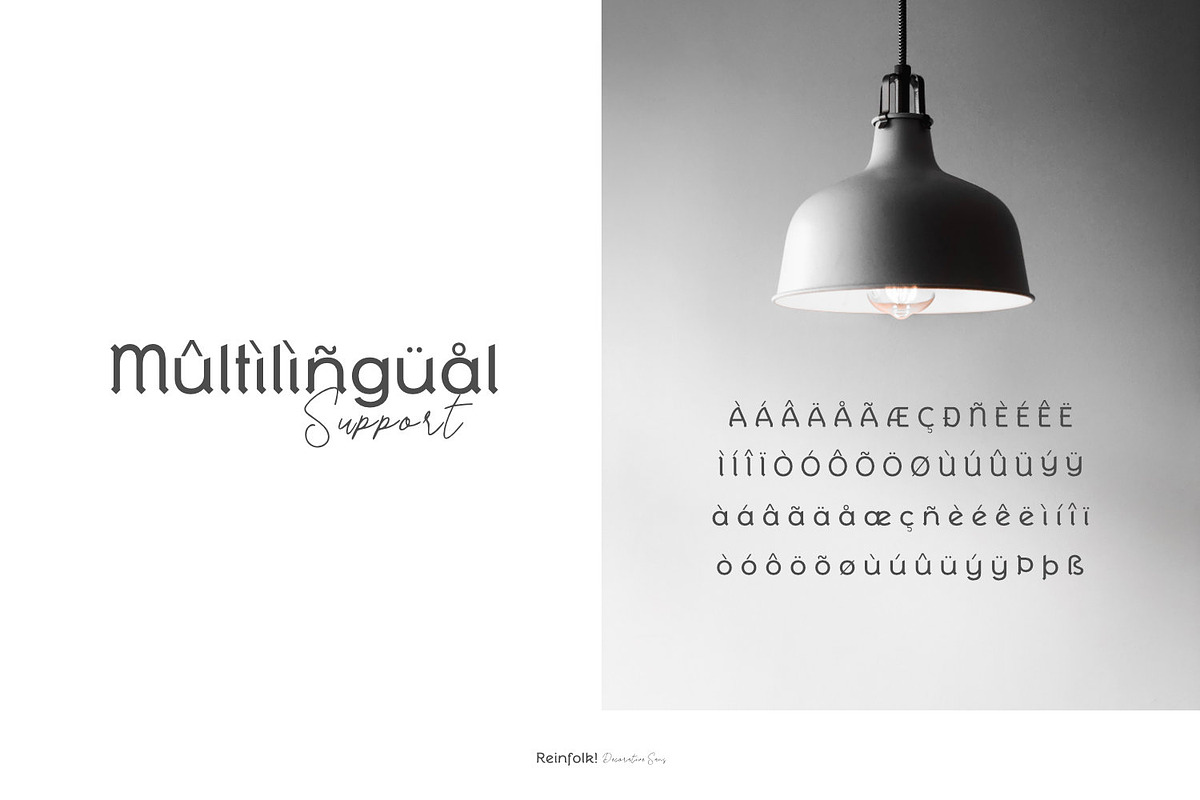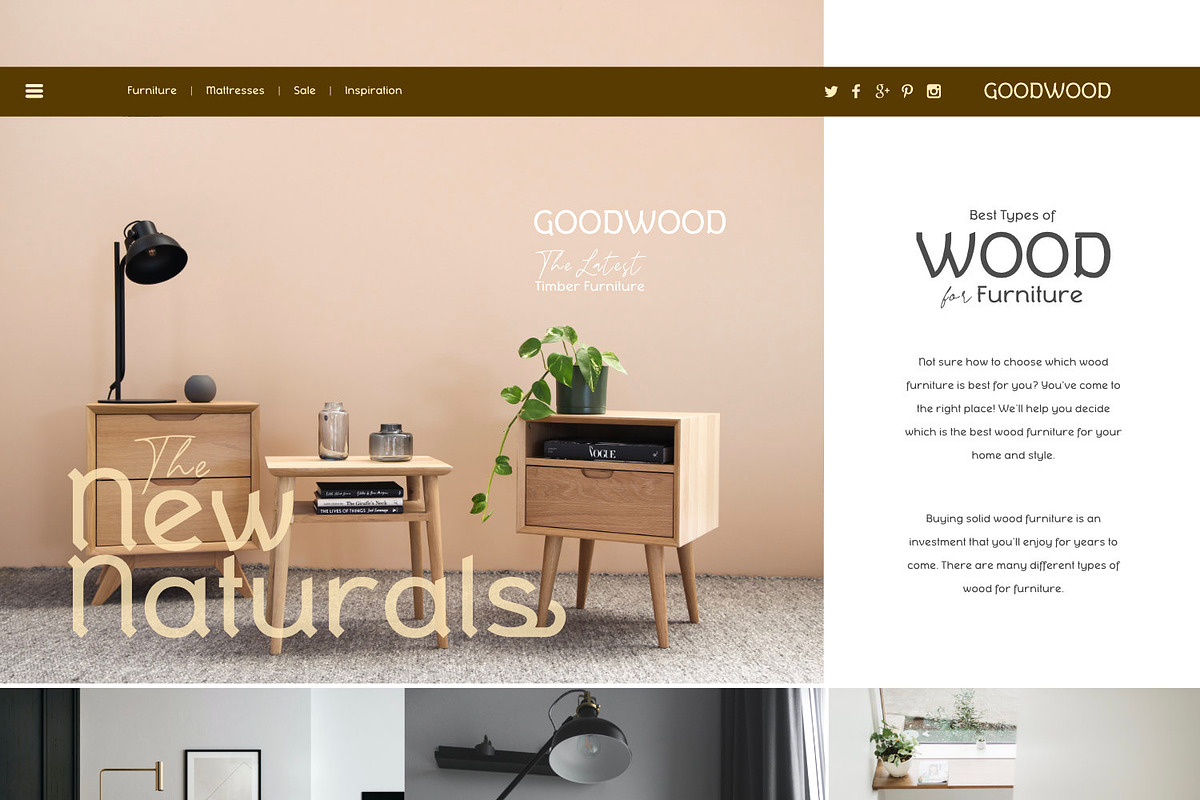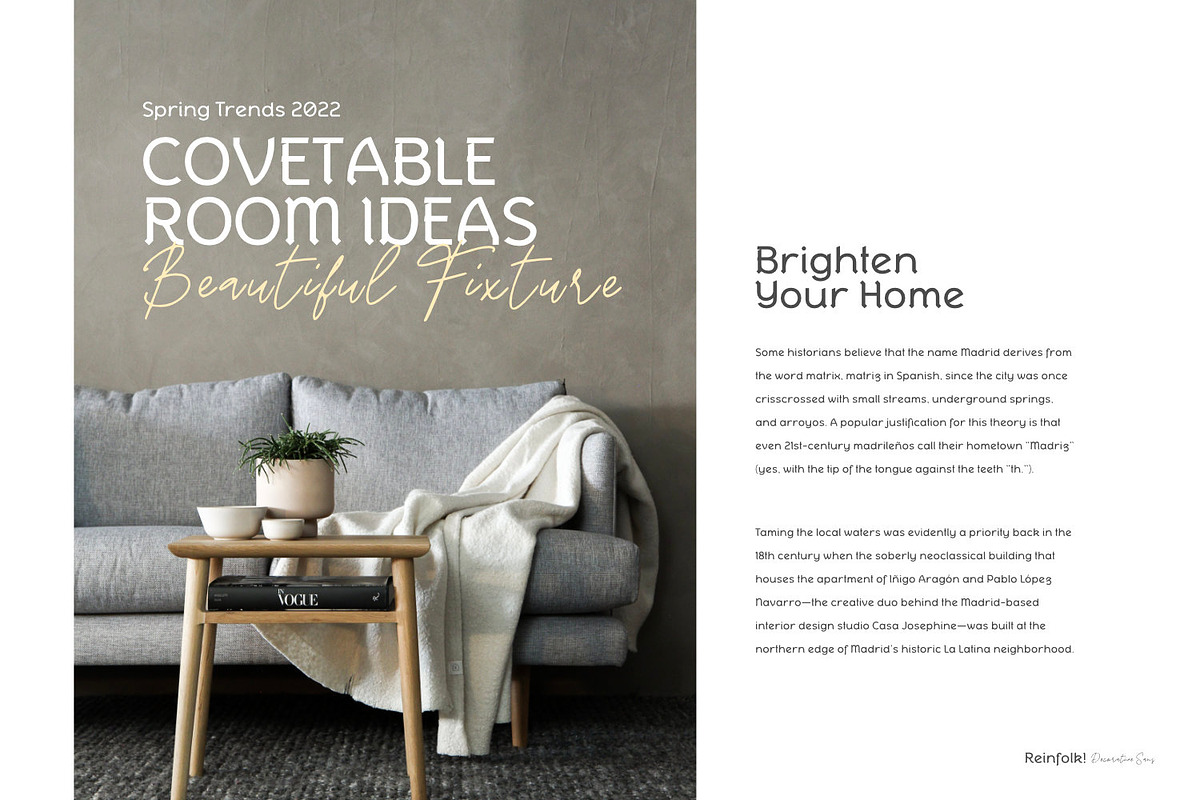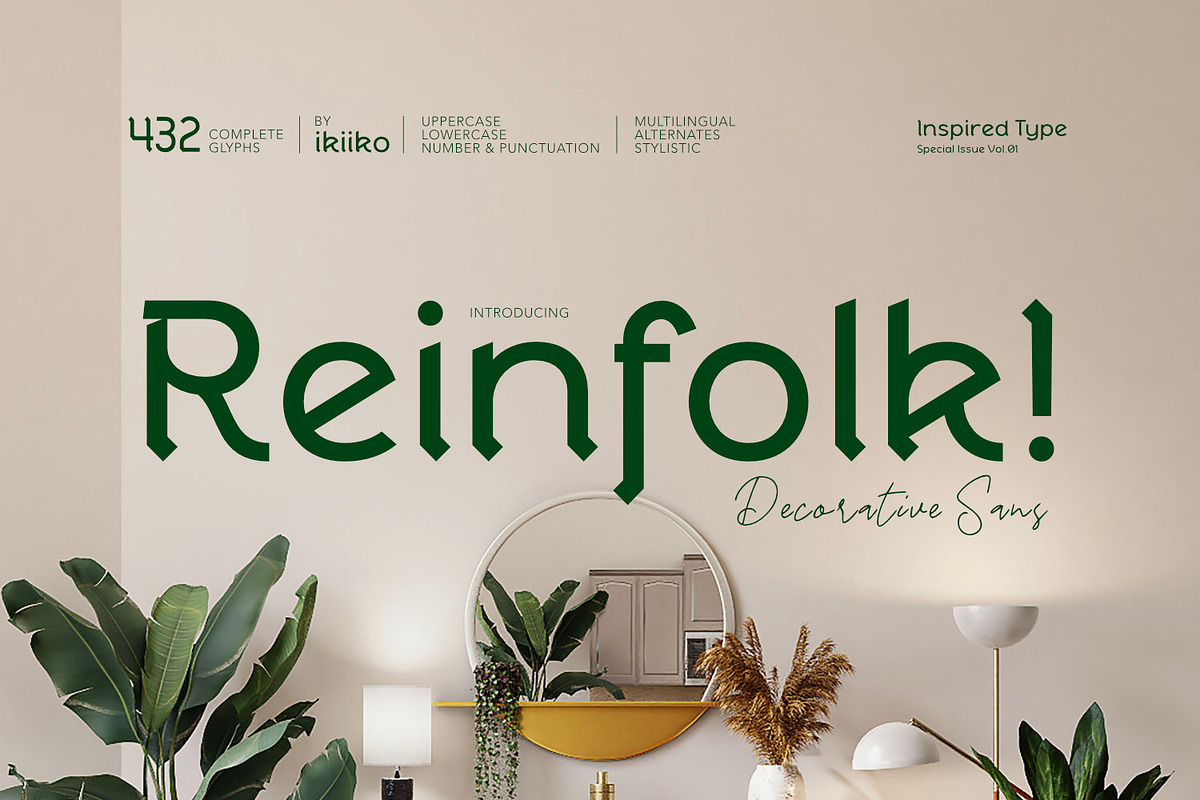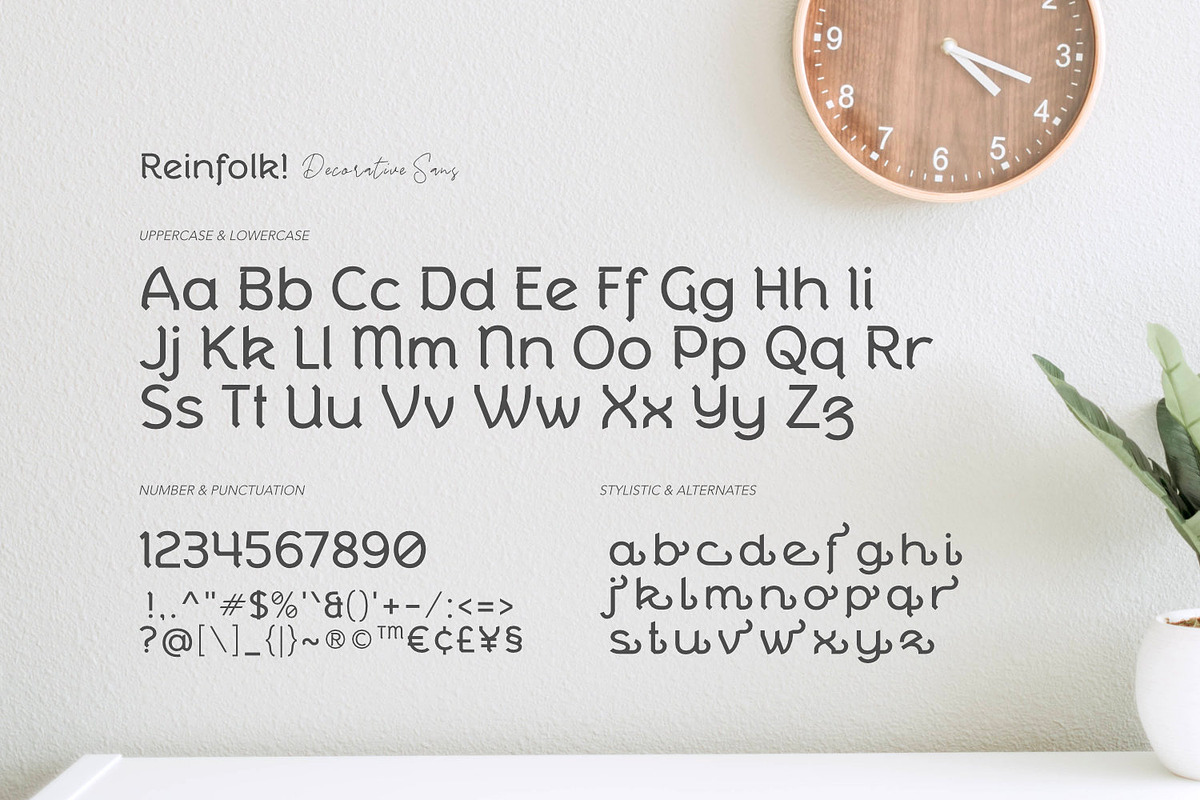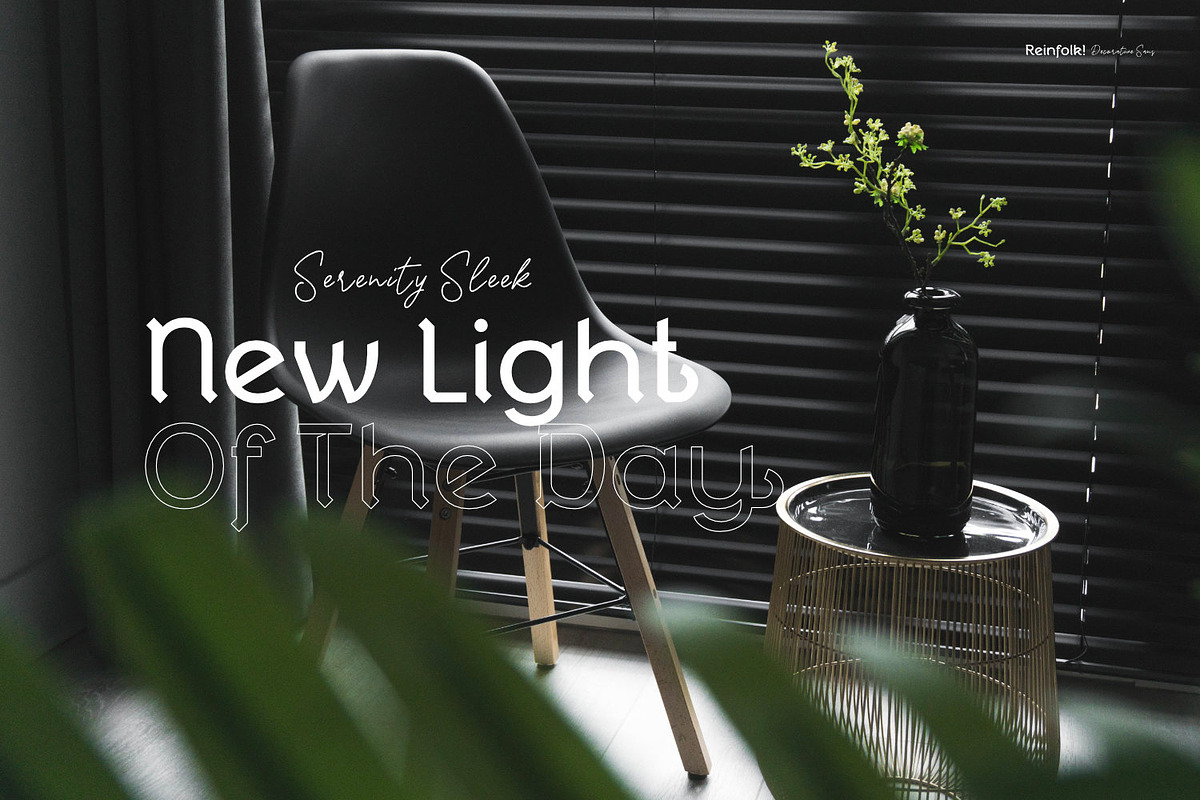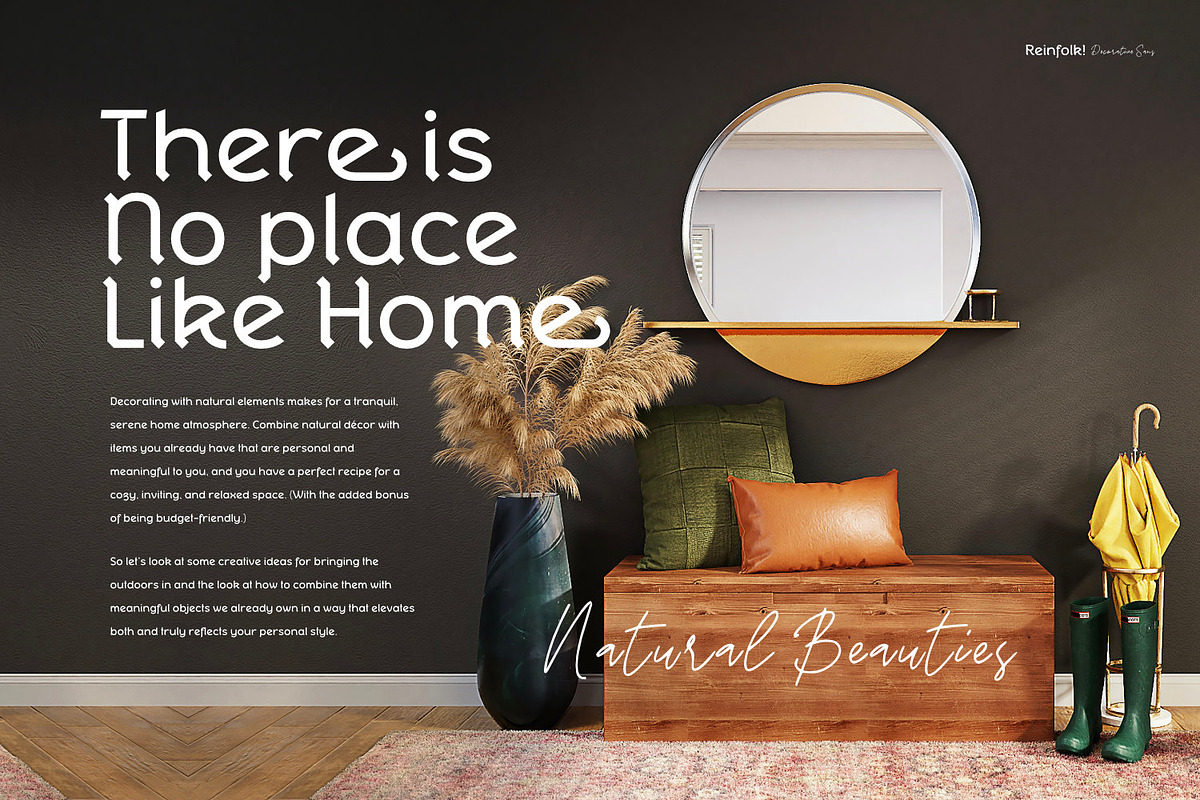
Reinfolk - Decorative Sans
Introducing Reinfolk - Decorative Sans, created by ikiiko.
Reinfolk is a sans serif typeface with a unique decorative shape. The form is a combination of the sans typeface with the tail character on the slab letter, so that it forms a unique formation and has a distinctive character. Reinfolk is a simple font, with a elegant and calm impression. This typeface is perfect for an elegant logo, branding, layout magazine, home & decor layout, beauty product, packaging product, quotes, or simply as a stylish text overlay to any background image.
- Number & Punctuation
- Alternates & Stylistic